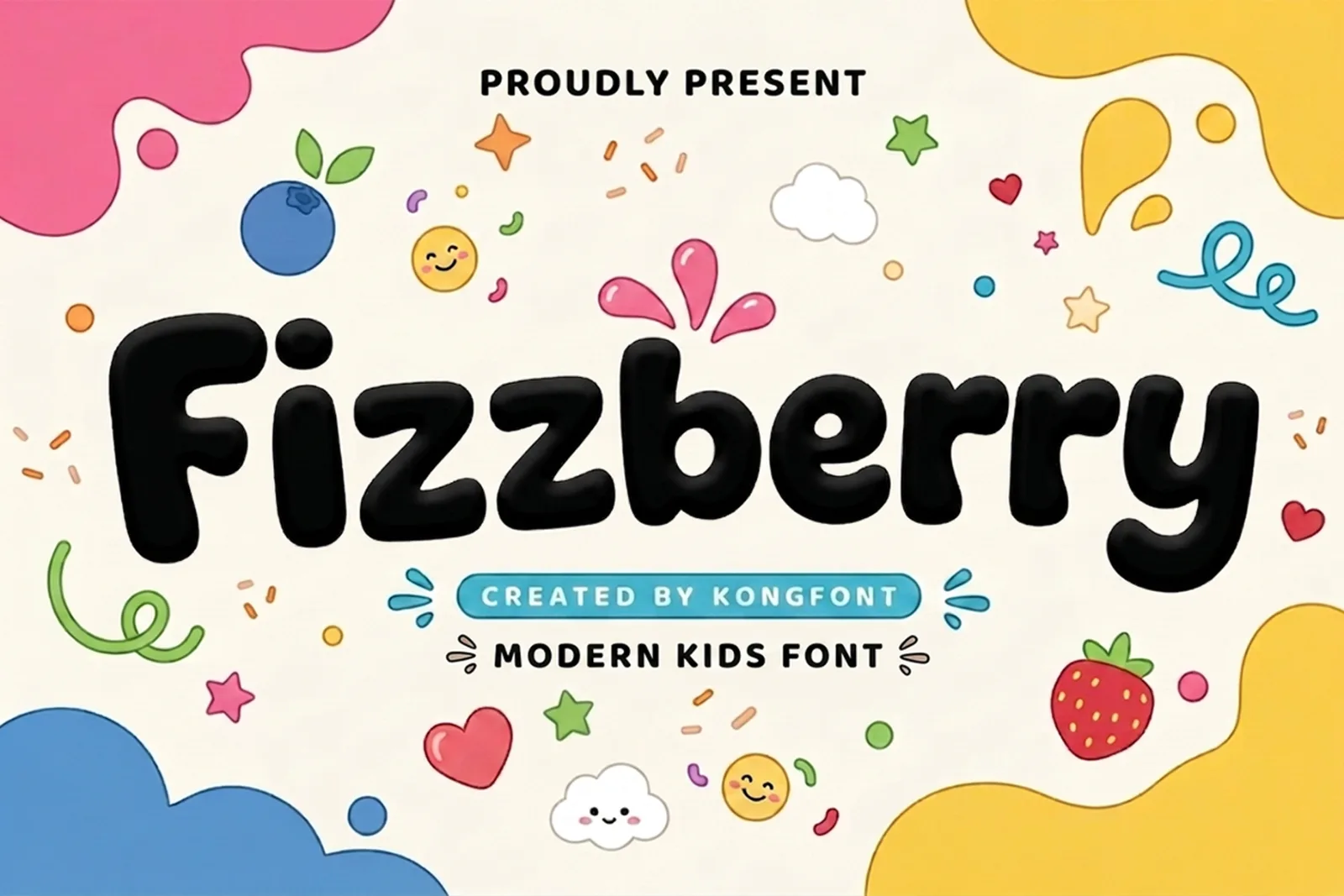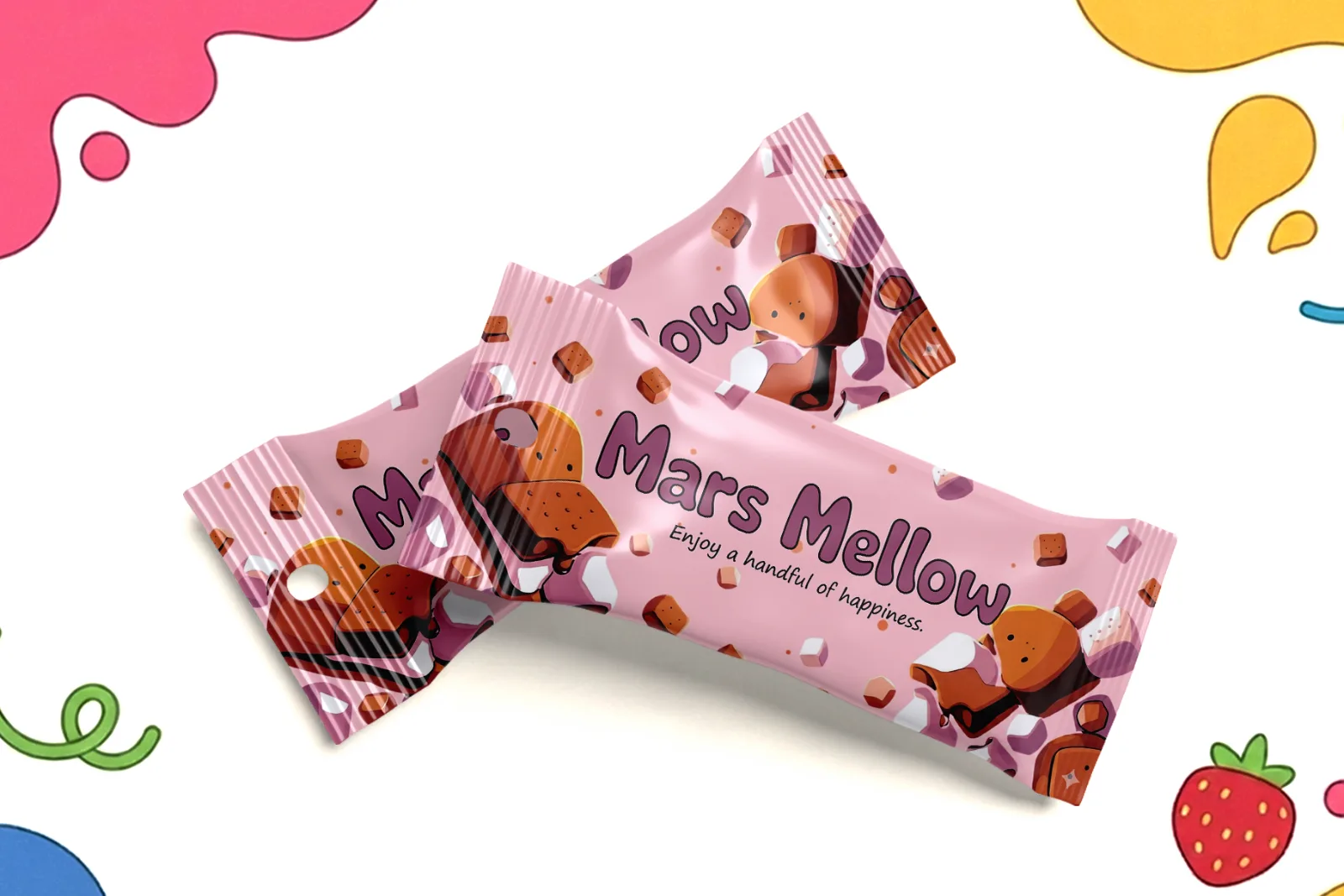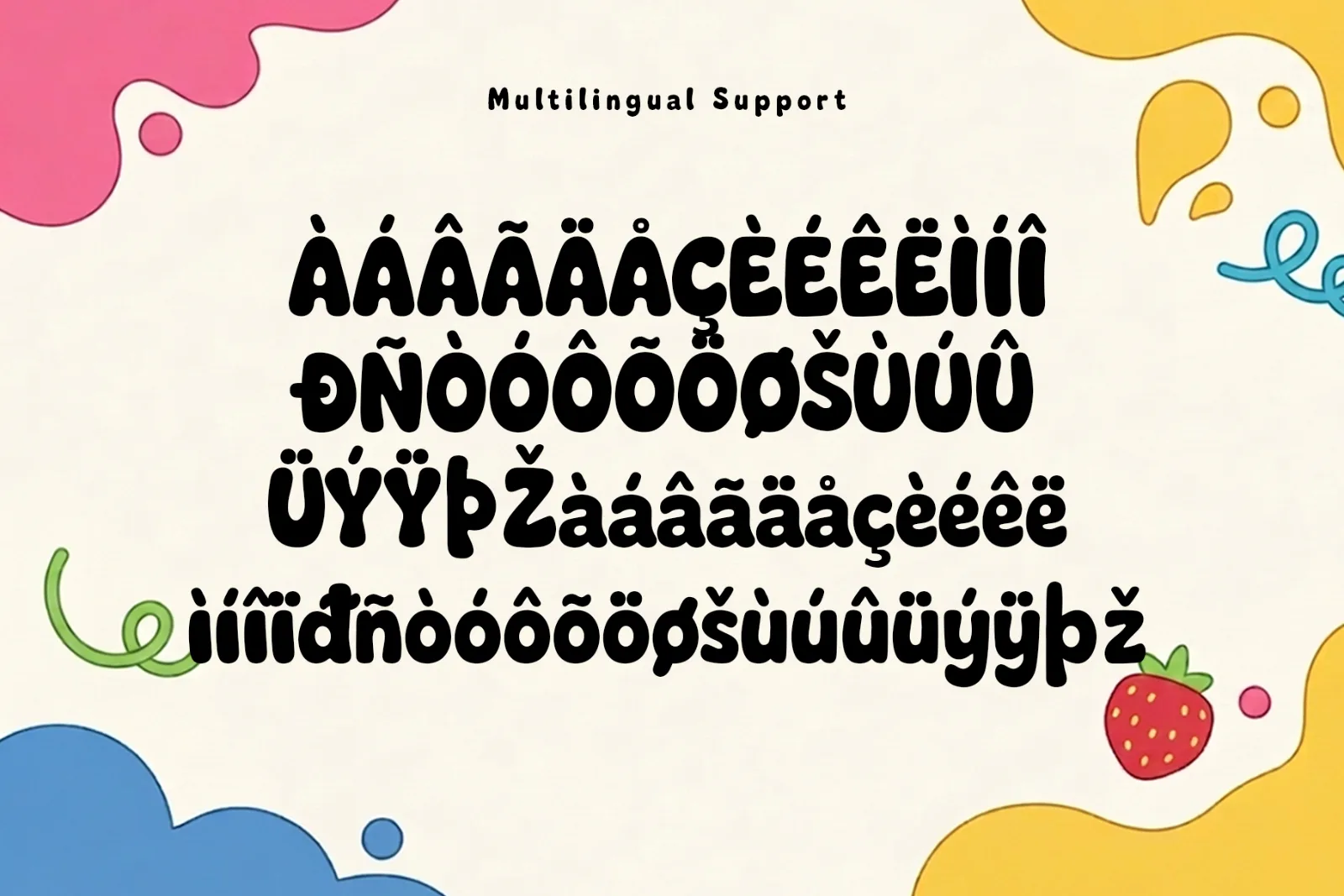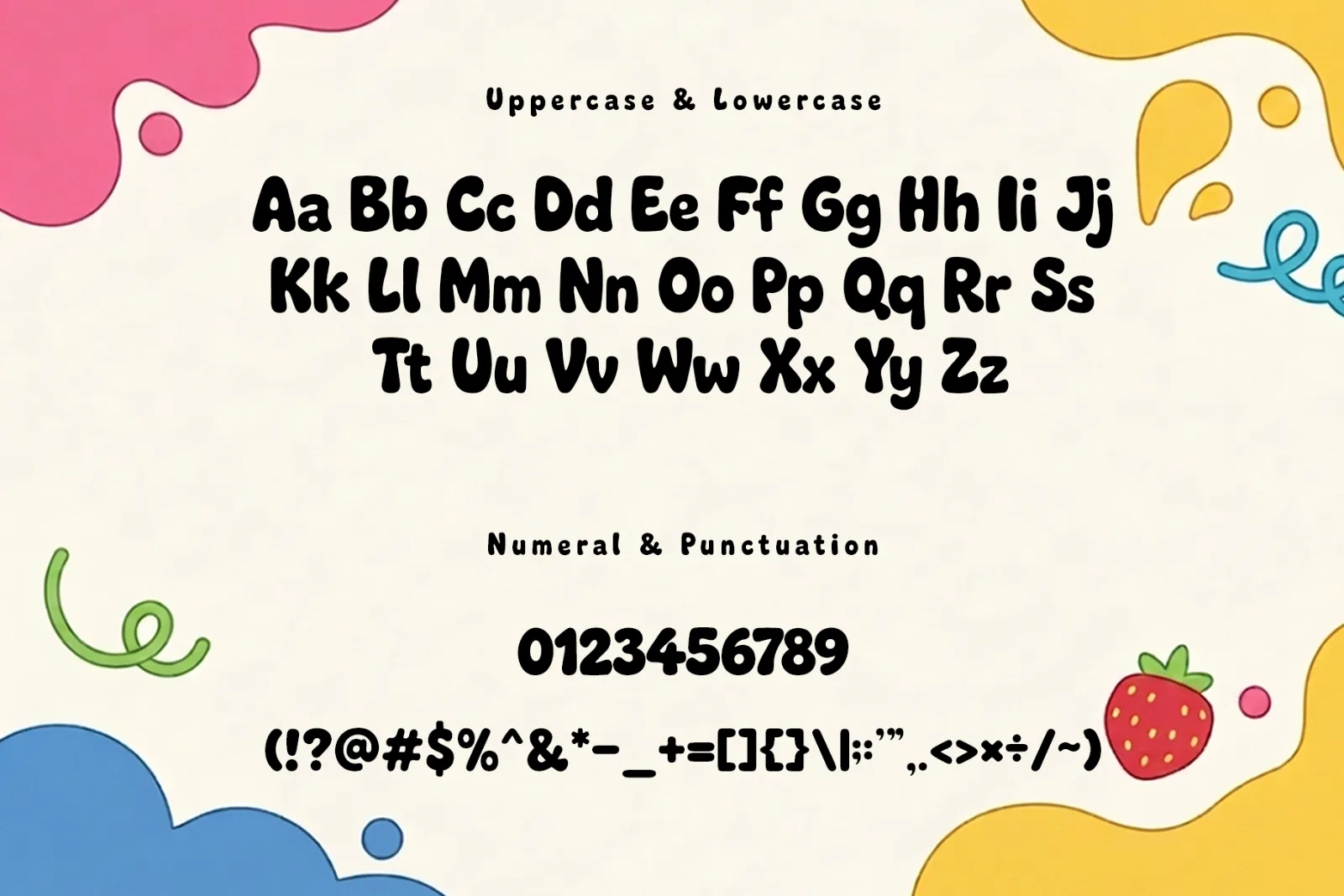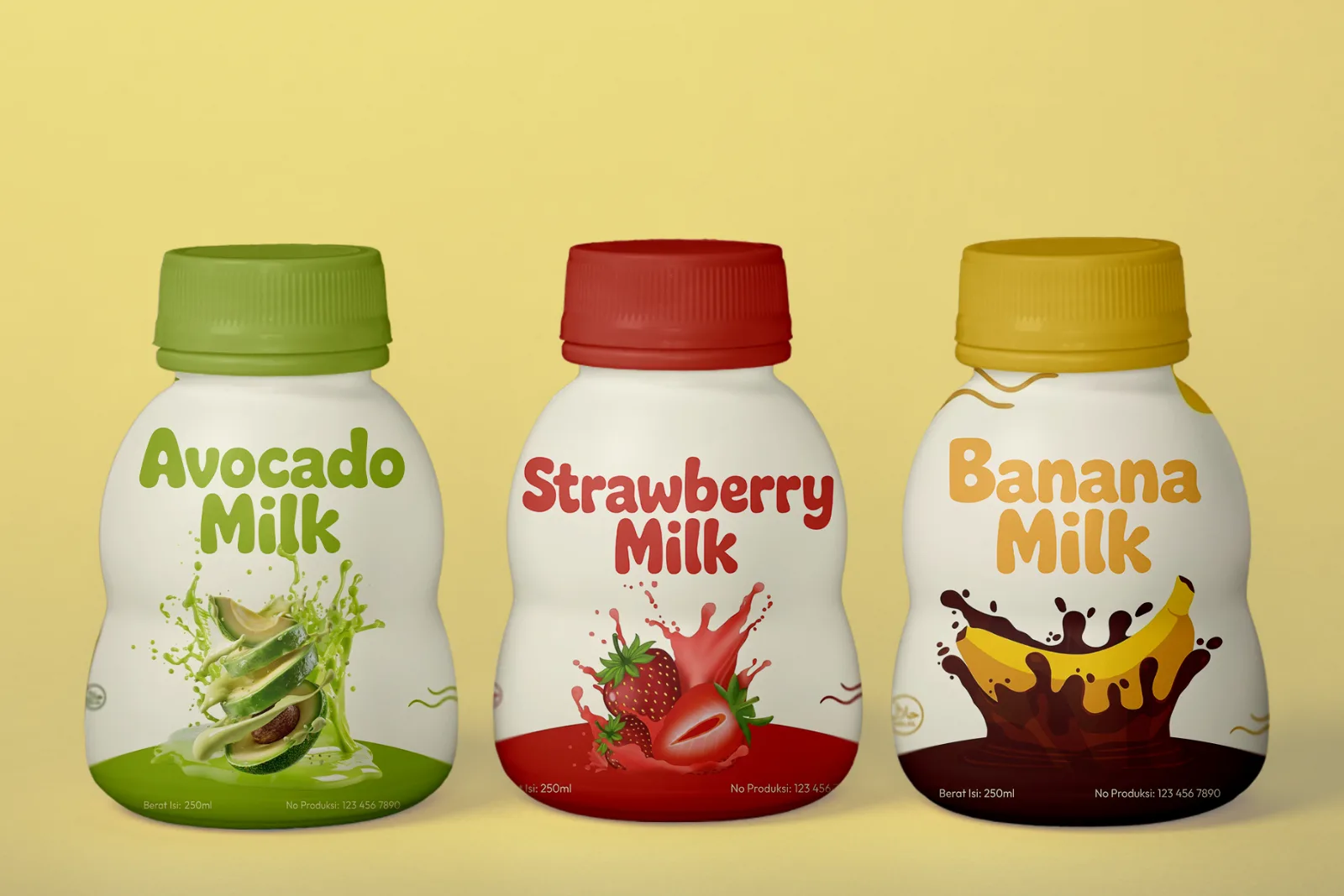
Fizzberry – Cute Playful Kids Display Font
Fizzberry is a cute and playful kids display font featuring soft rounded shapes, bubbly proportions, and a cheerful personality. Its friendly letterforms make every design feel fun, warm, and approachable.
Created for colorful children-focused projects, Fizzberry works beautifully for storybooks, toy packaging, educational materials, birthday designs, stickers, merchandise, games, and playful branding.
Perfect for:
- Kids Branding
- Storybooks
- Educational Materials
- Toy Packaging
- Birthday Designs
- Posters & Headlines
- Stickers & Labels
- Games & Apps
- T-Shirts & Merchandise
- School Projects
- YouTube Thumbnails
- Social Media Graphics